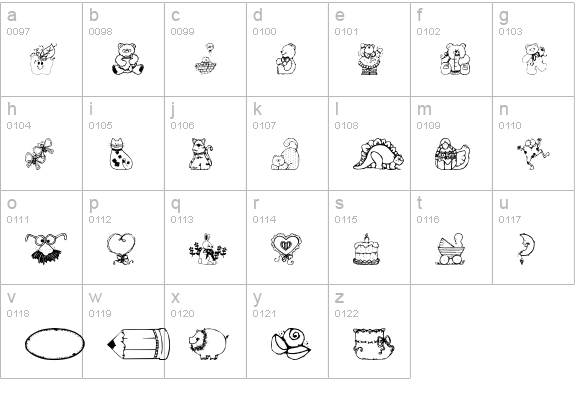
Country Cuties Font Details
Country Cuties font is a delightful and charming typeface that exudes a warm and friendly vibe. With its playful yet elegant design, this font is perfect for adding a touch of whimsy to any project. Country Cuties features cute and stylish letterforms that are sure to make your text stand out. And the best part? Country Cuties font is completely free to download at FontsMarket.com! Whether you're working on a craft project, designing invitations, or creating social media graphics, this font is a versatile option that will add a touch of country charm to your work. Don't miss out on this adorable font - download Country Cuties today and let your creativity shine!